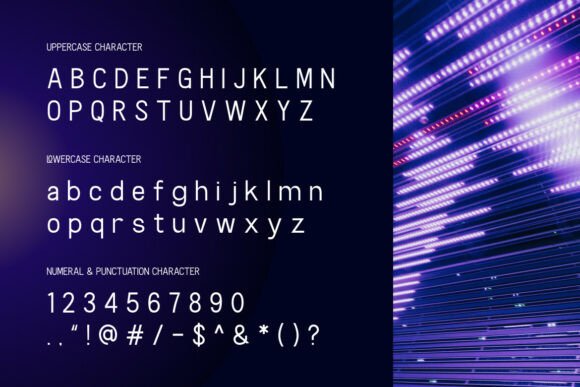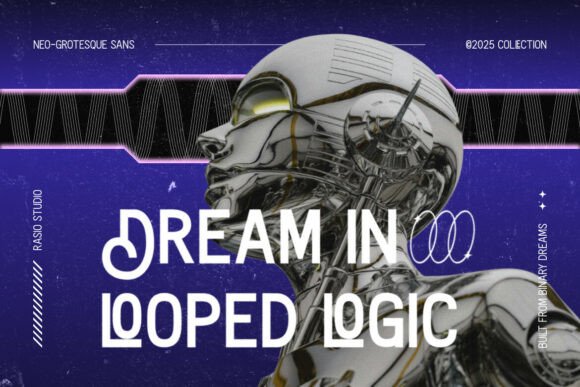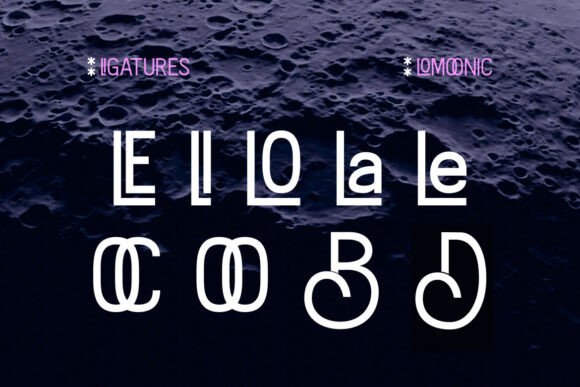
Introduction to Lomoonic Font
Lomoonic is a modern neo-grotesque sans-serif typeface crafted with a futuristic aesthetic and clean structural precision.
Designed with minimal stroke contrast, balanced proportions, and refined geometric construction, this typeface delivers a sleek and contemporary visual tone The character set features uppercase, lowercase, numerals, punctuation, and distinctive ligature forms that enhance typographic uniqueness while maintaining clarity.